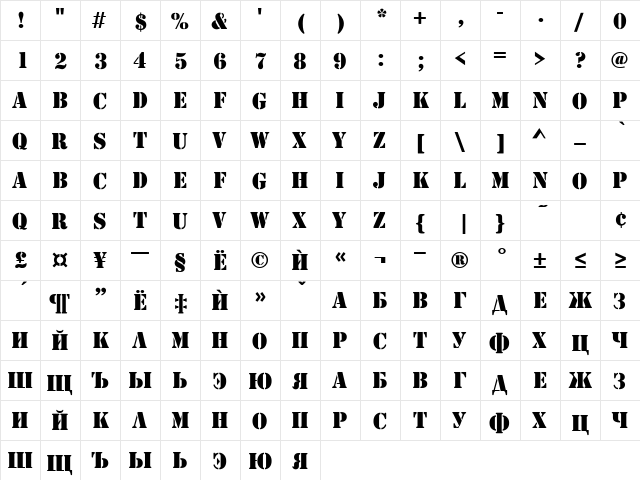
Shtempel Regular
Design Context for Shtempel Typeface
Shtempel is a composed and adaptable typeface that performs quietly and consistently across a wide range of design contexts.